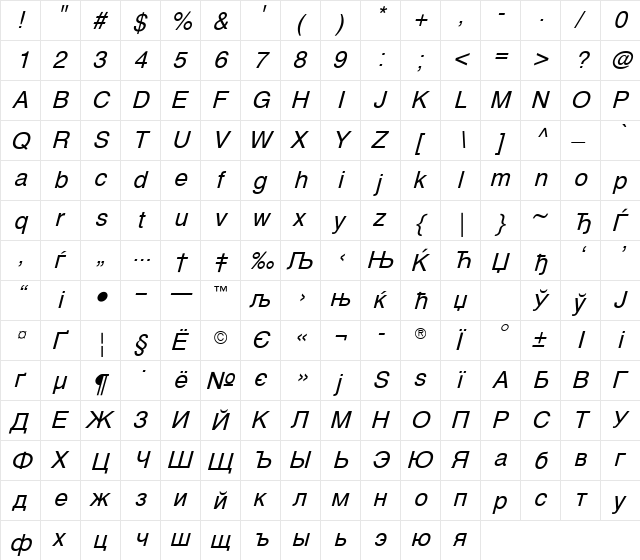
SvobodaFWF Italic
Design Context for SvobodaFWF Typeface
SvobodaFWF takes a measured approach to typography — its balanced proportions and neutral character make it a reliable workhorse for both digital and print work. The dynamic lean of this cut emphasises speed and emphasis in any layout.
Pro Tip: Try SvobodaFWF for annotation and caption copy alongside an upright companion — the contrast in angle creates a dynamic but ordered typographic system.